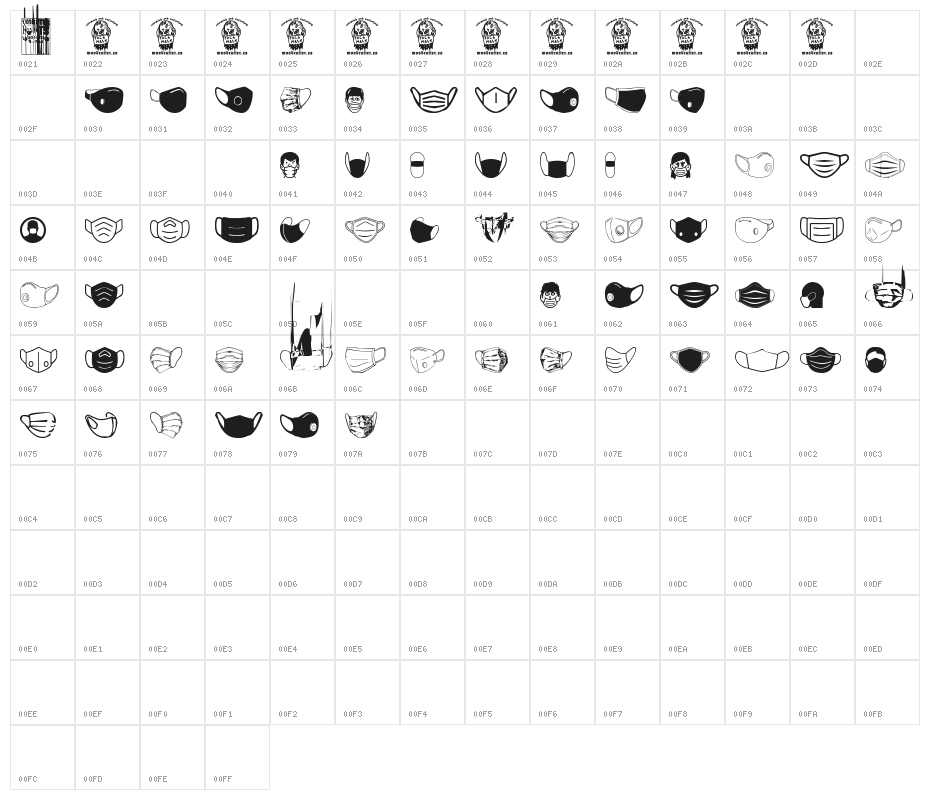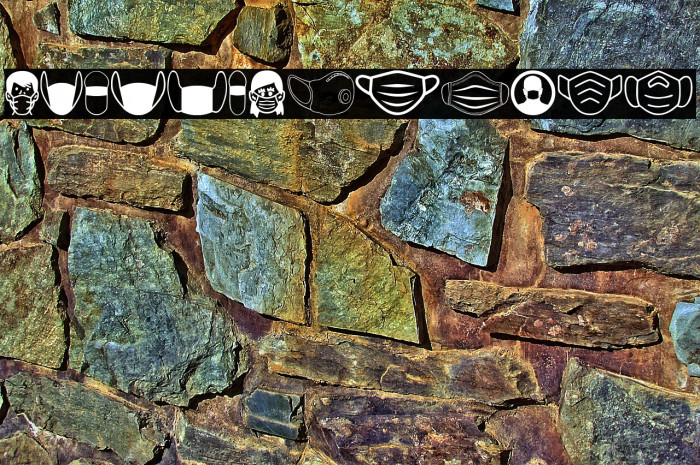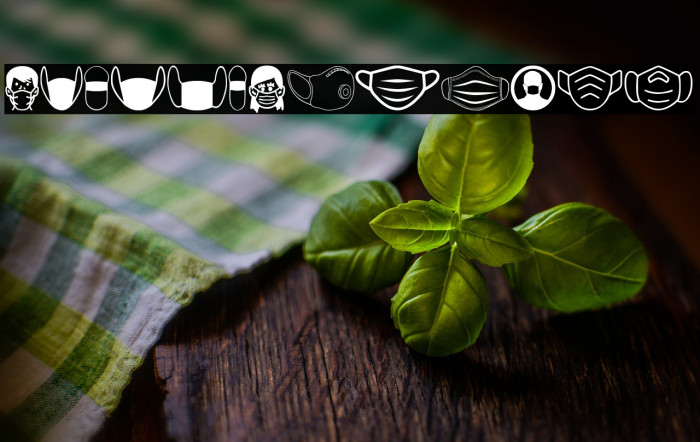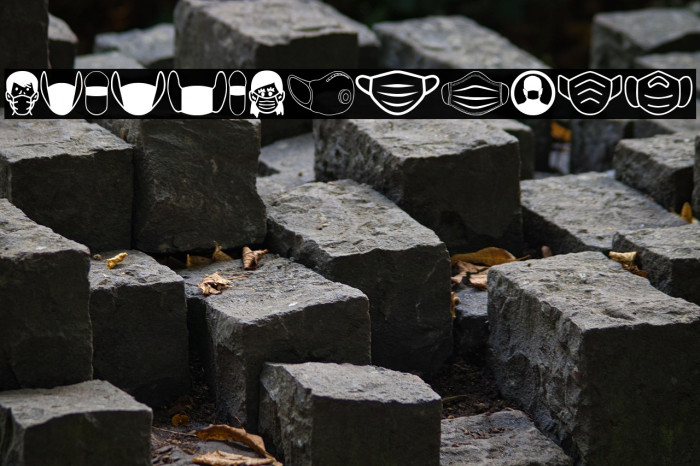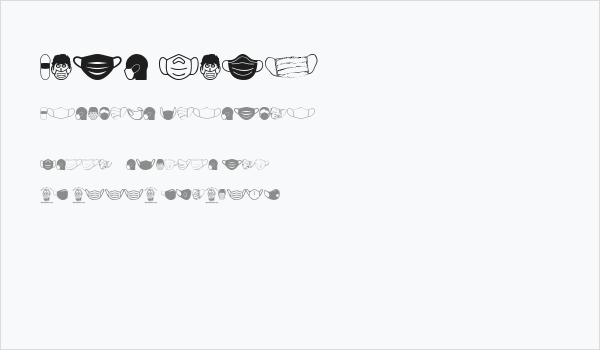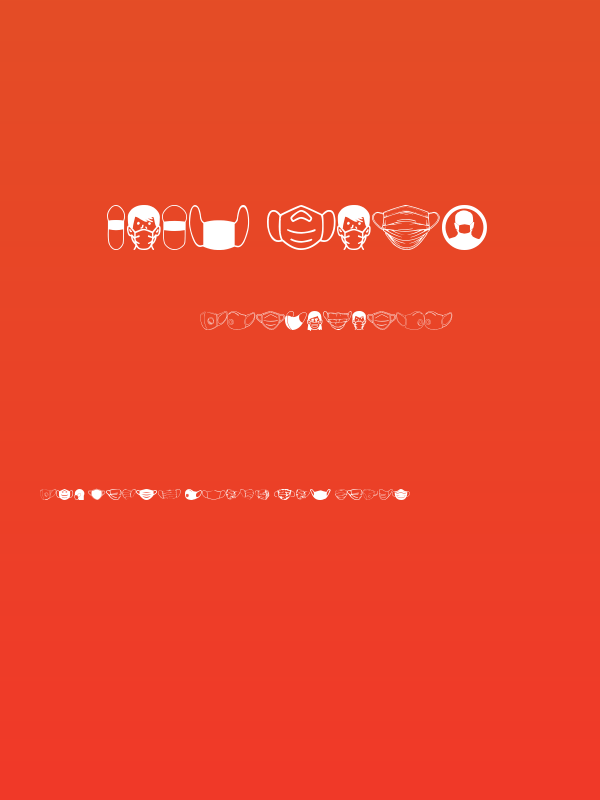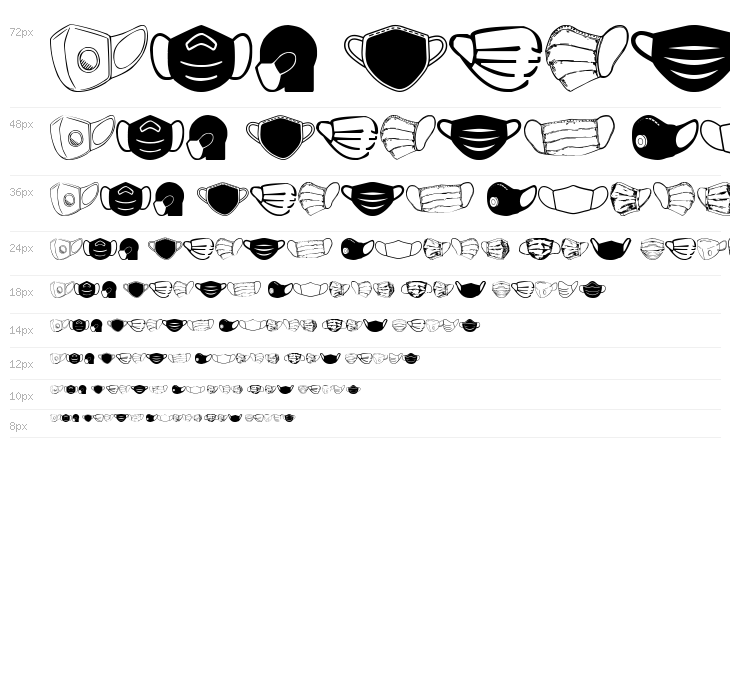
Face Mask Font
A decorative and illustrative font where each character is represented by a unique face mask or masked face, rendered in a bold, outlined, and cartoon-like style with both filled and unfilled elements.
| Overall Style | Decorative, Playful, Thematic |
| Use Case | Headlines, Posters, Themed graphics, Educational materials |
| Proposed Projects | Posters, awareness campaigns, educational materials, themed event graphics, children's books. |